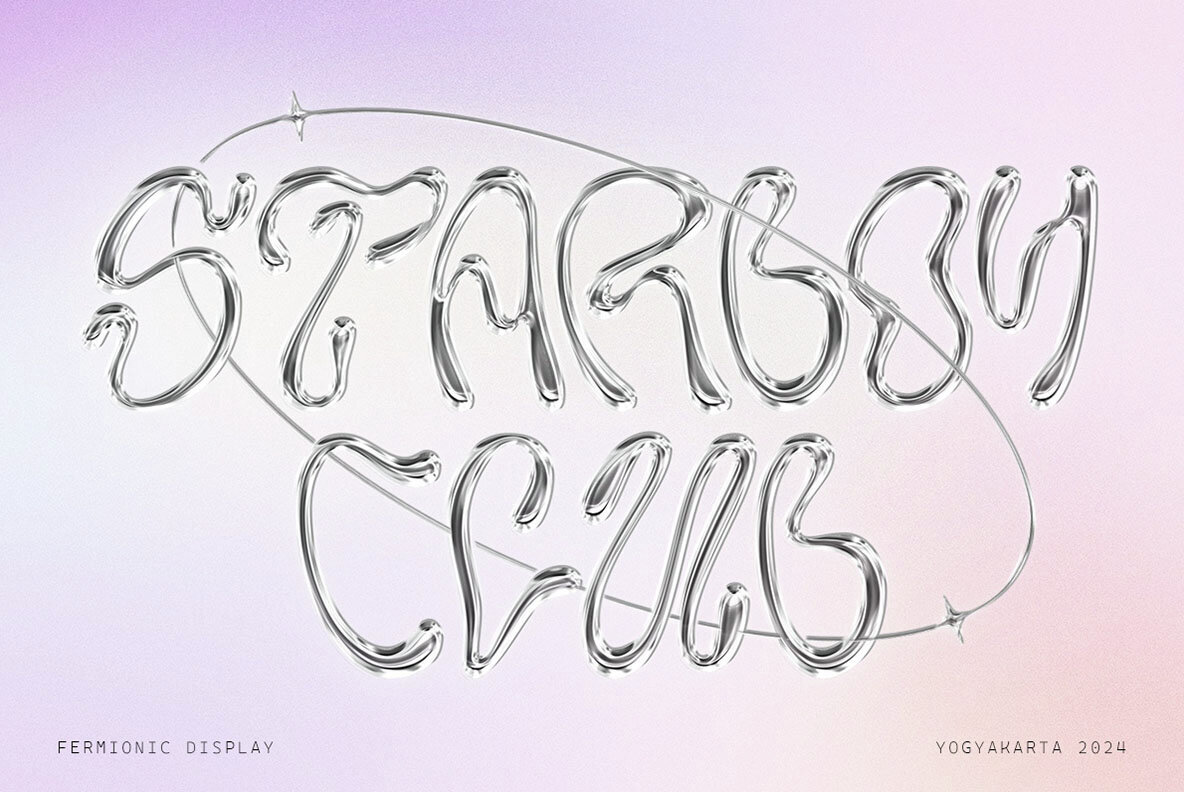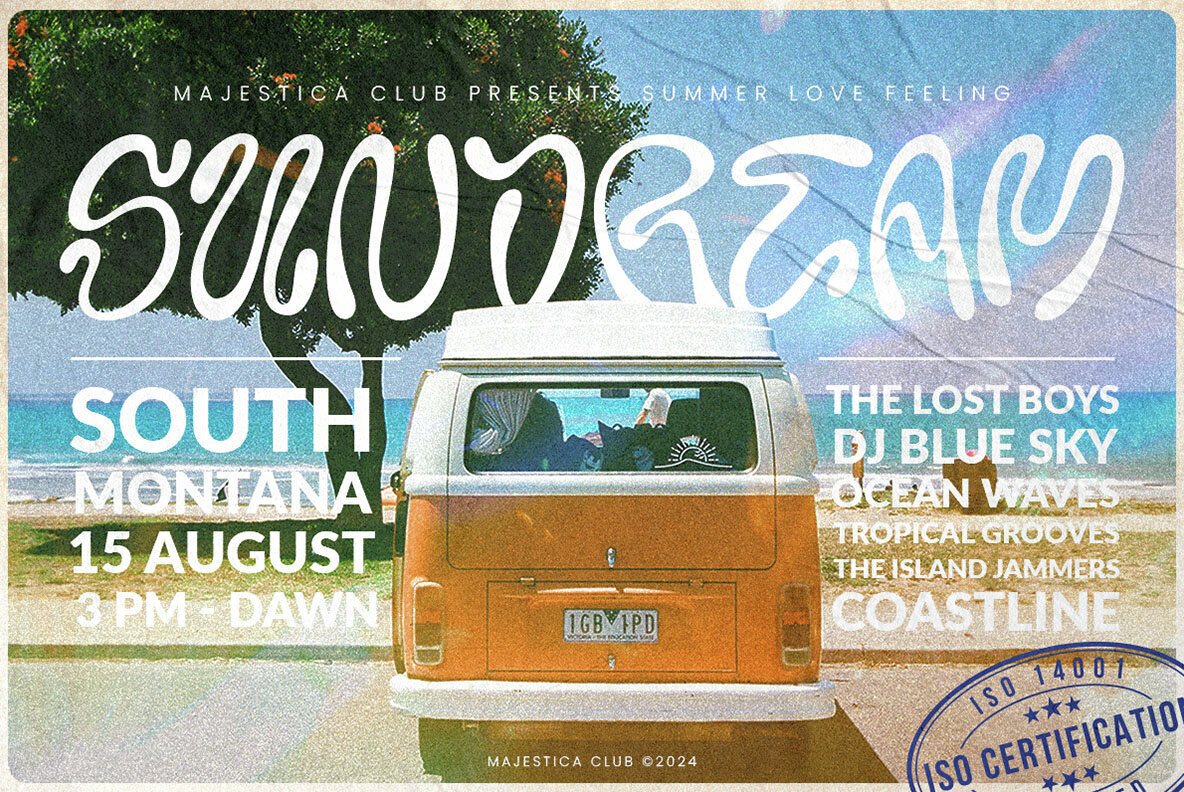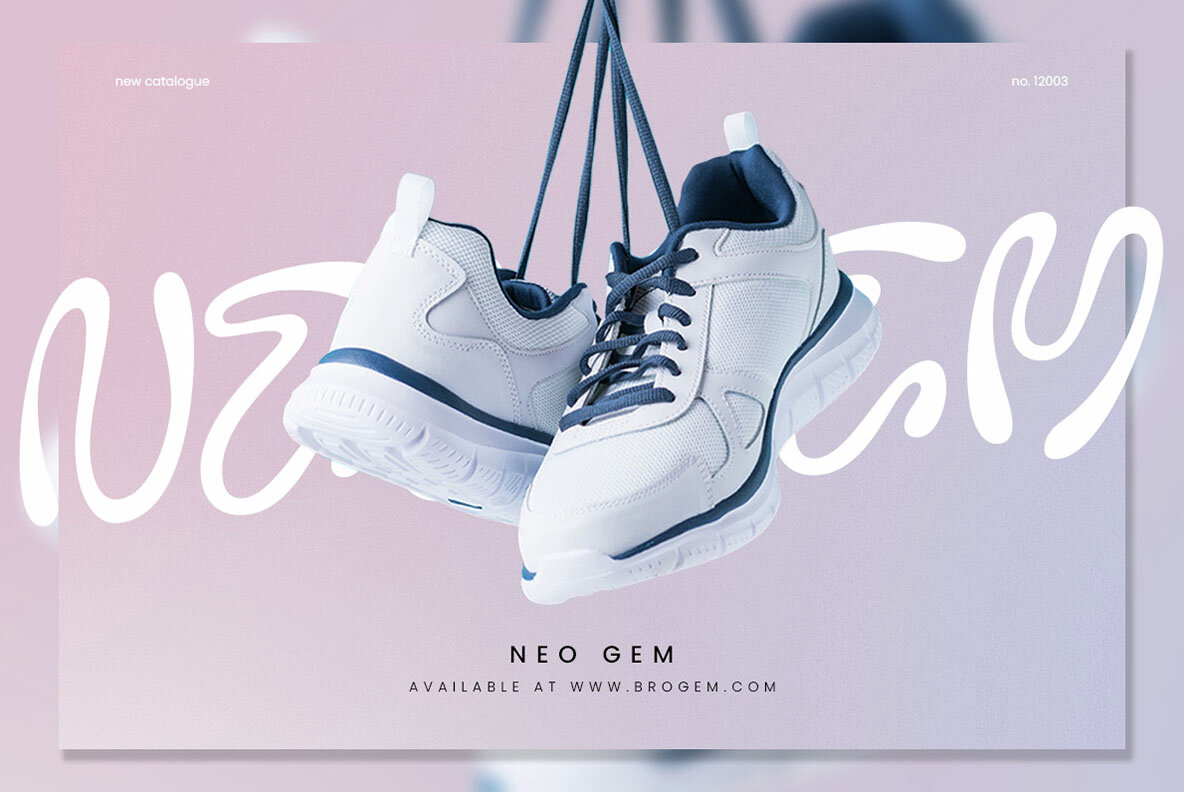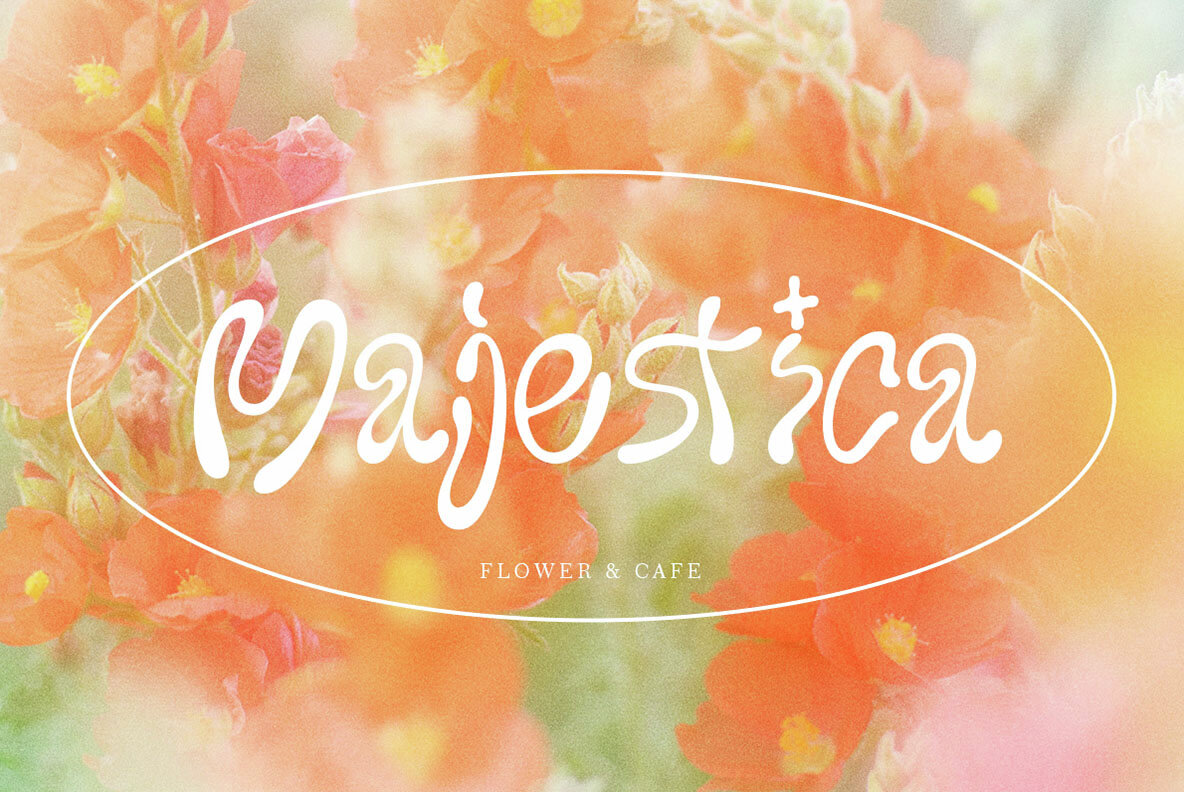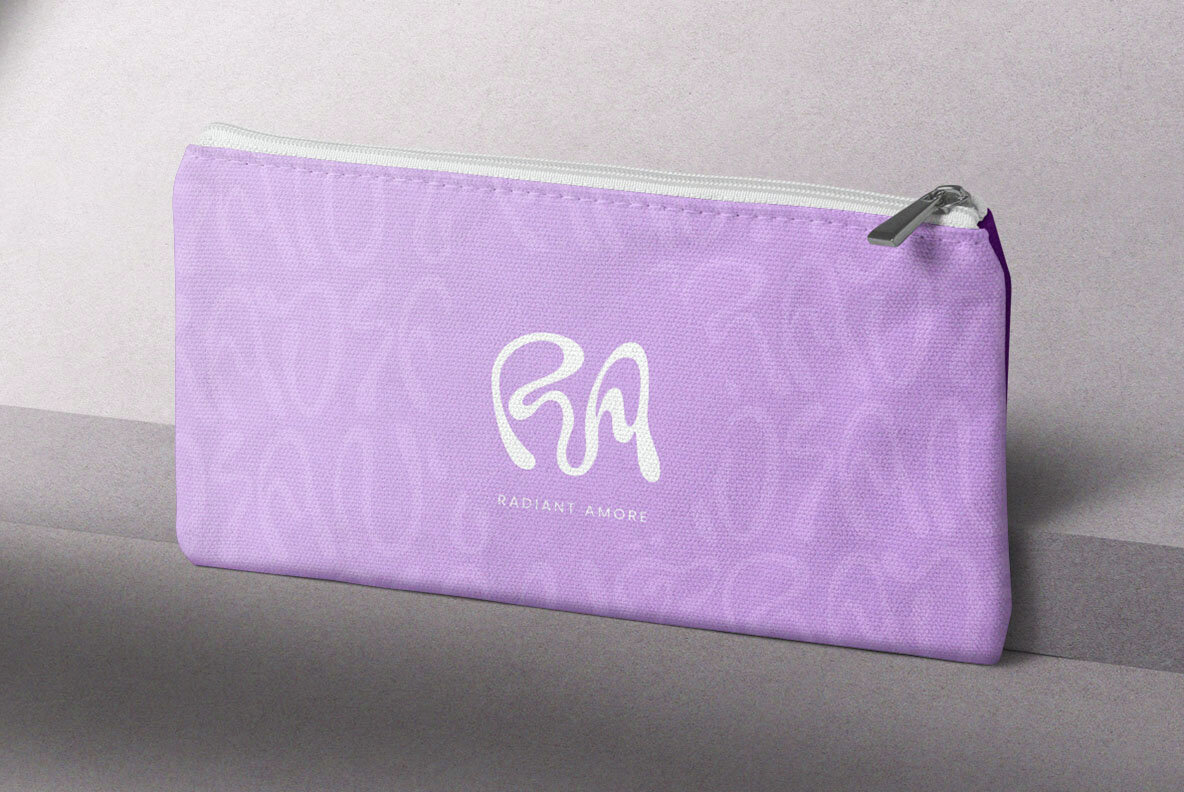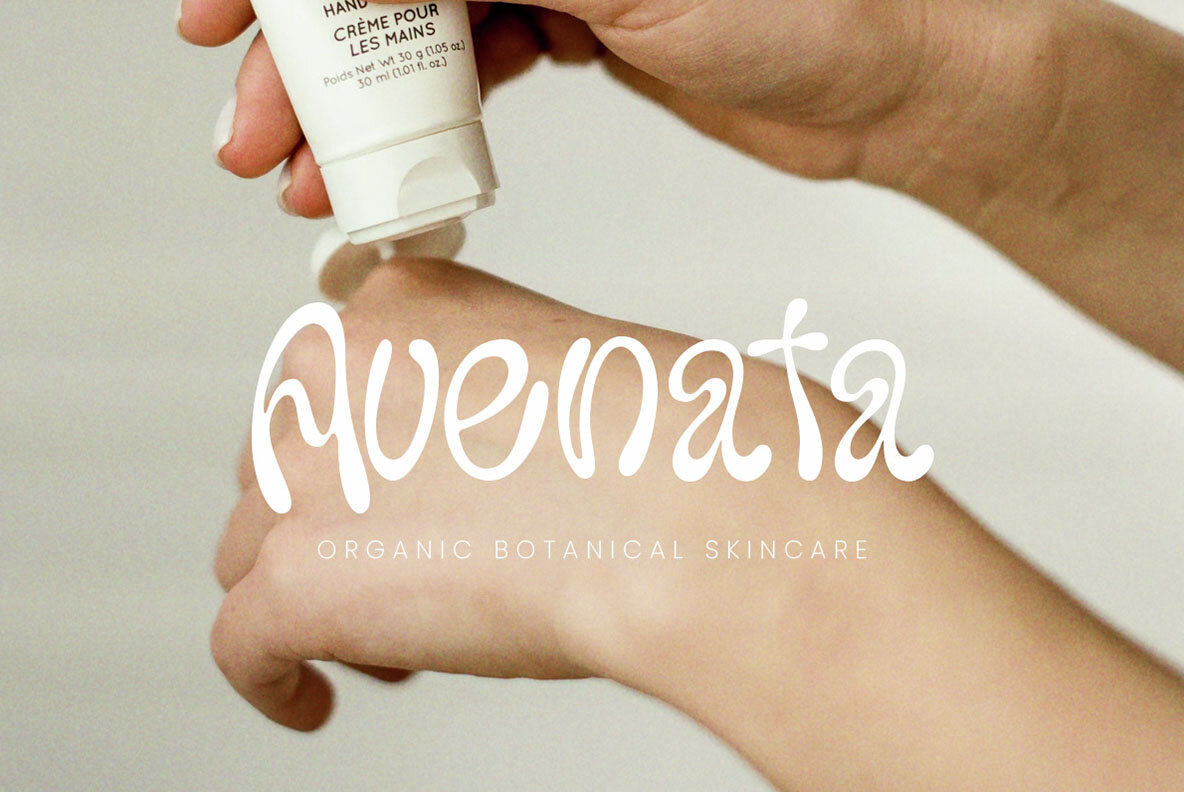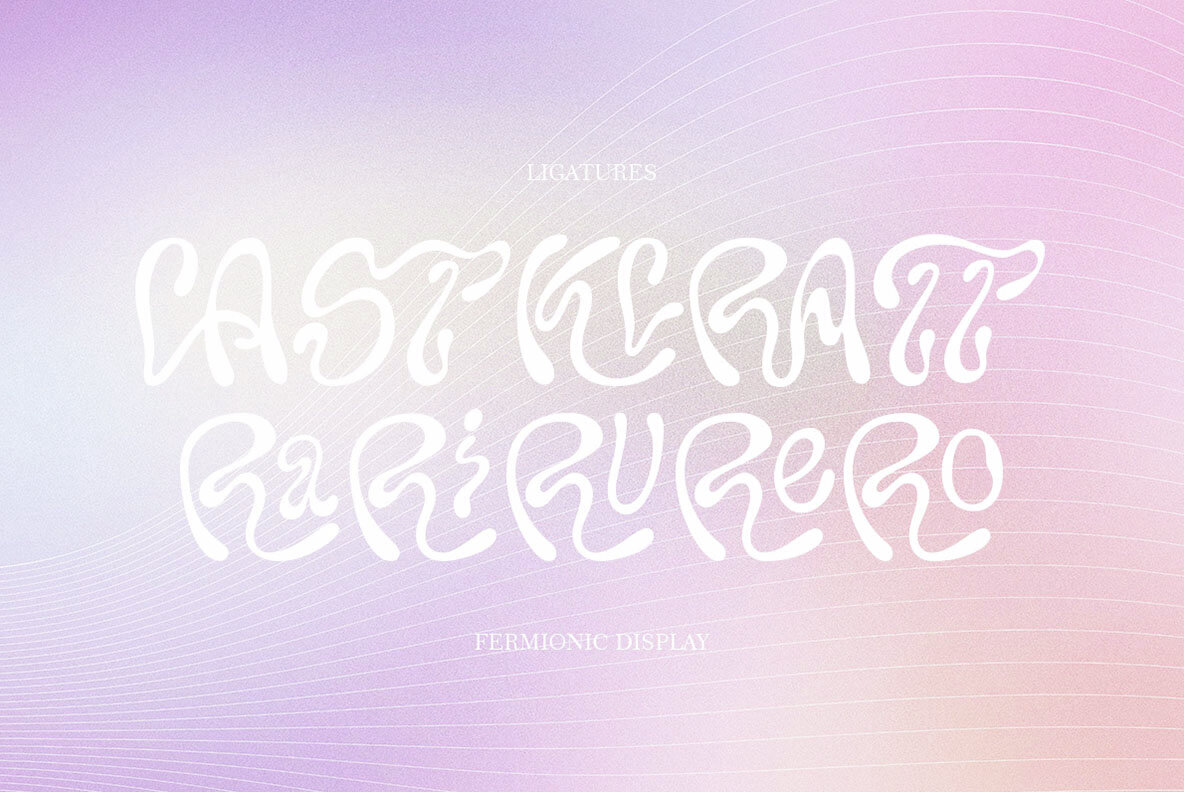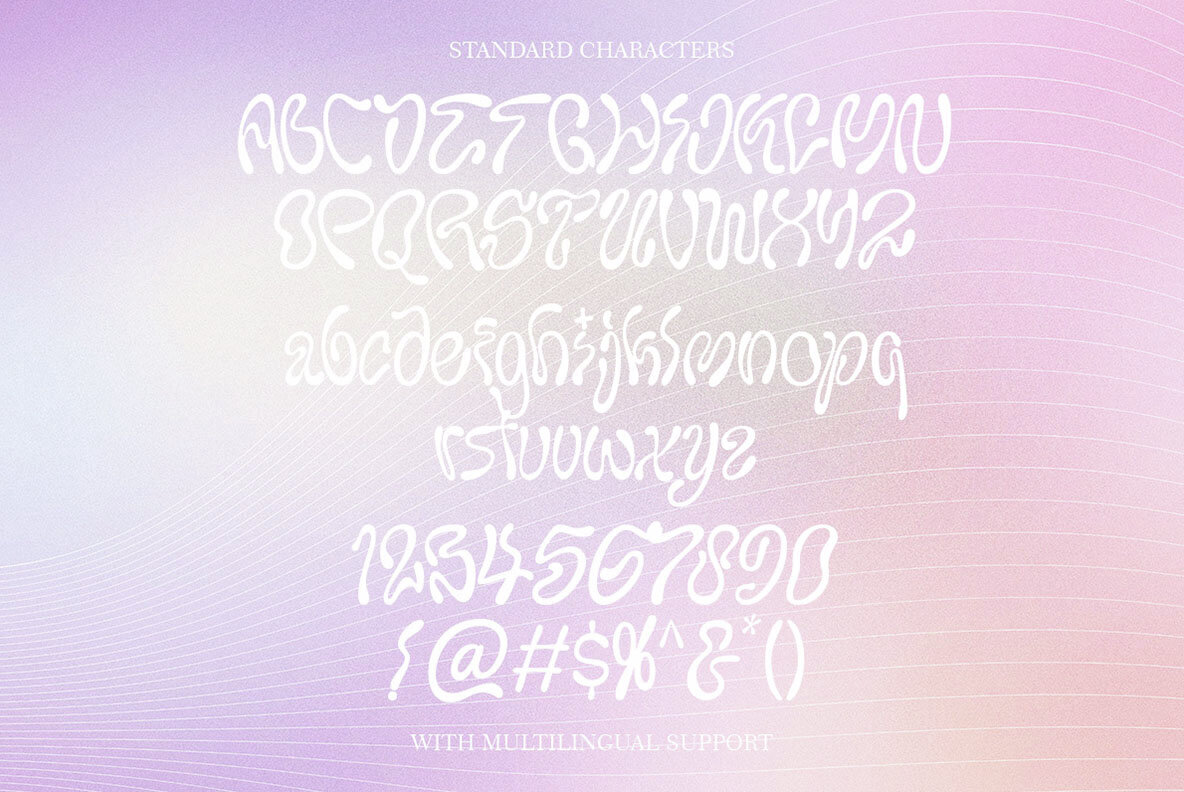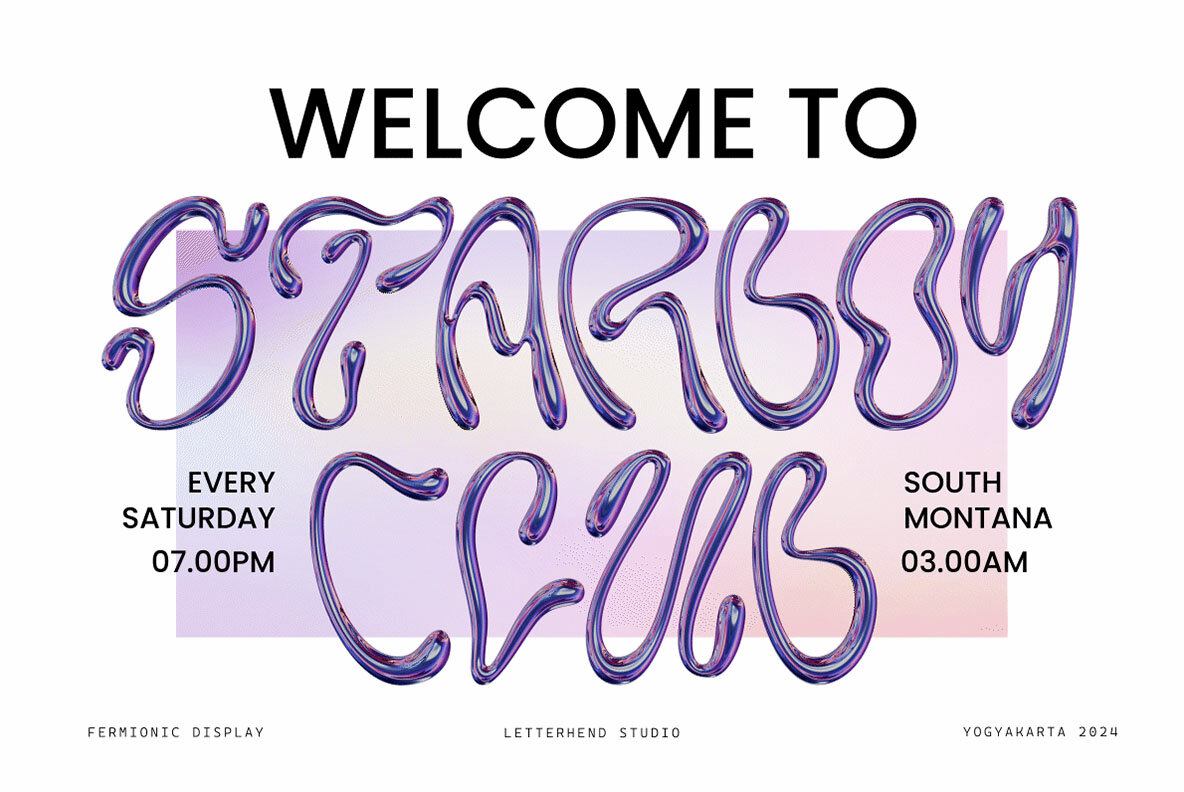
Fermionic Font
Fermionic Regular
Fermionic is a meticulously designed liquid font, created to embody the vibrant energy of the Y2K era. With its flowing shapes and dynamic curves, this font is the ideal choice for any Y2K-themed design, from digital graphics to print layouts. Whether you're looking to evoke nostalgia or bring a retro-futuristic edge to your projects, Fermionic delivers a unique blend of playfulness and sophistication that perfectly captures the spirit of the millennium. Features: We highly recommend using a program that supports OpenType features and Glyphs panels like many of Adobe apps and Corel Draw, so you can see and access all Glyph variations.